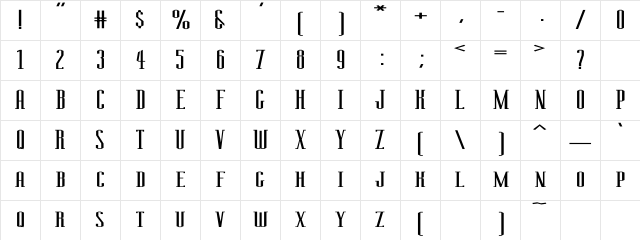
ManzanitaWide Regular
Design Context for ManzanitaWide
ManzanitaWide is a composed and adaptable typeface that performs quietly and consistently across a wide range of design contexts.
Pro Tip: Use ManzanitaWide in both headline and body roles to test its range before committing to a single application.